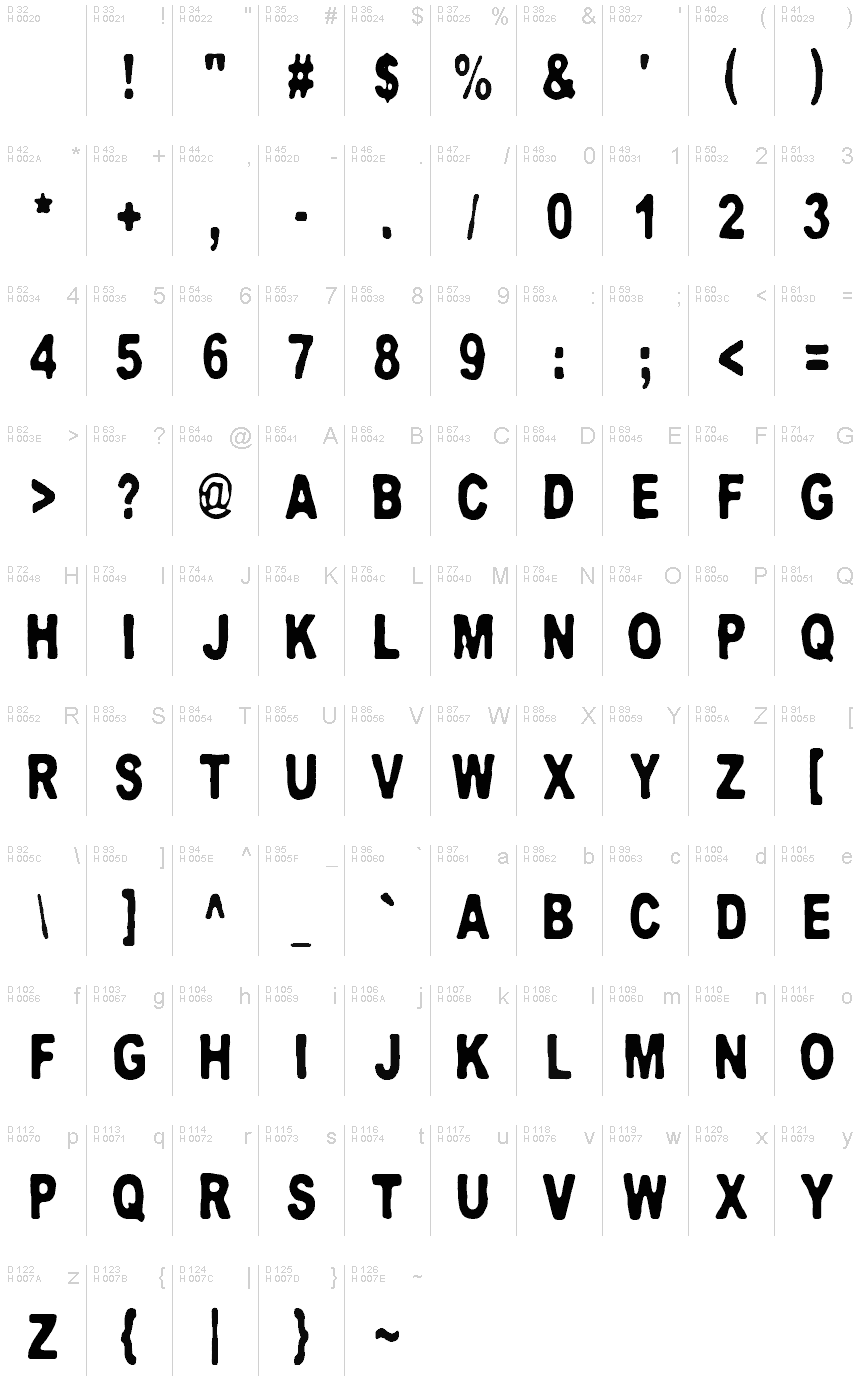
Neptunus
Neptunus is a bold, condensed display font with a striking eroded aesthetic. Designed by junkohanhero, this typeface exudes a raw, rugged charm that sets it apart.
The heavily textured letterforms evoke a sense of weathered industrial charm, making Neptunus an excellent choice for headers, logos, and other display-oriented design elements. Its condensed width lends it a compact, space-saving quality, while the bold weight ensures it commands attention.
Neptunus would thrive in branding, packaging, and editorial designs seeking a distinct, eye-catching typographic voice.